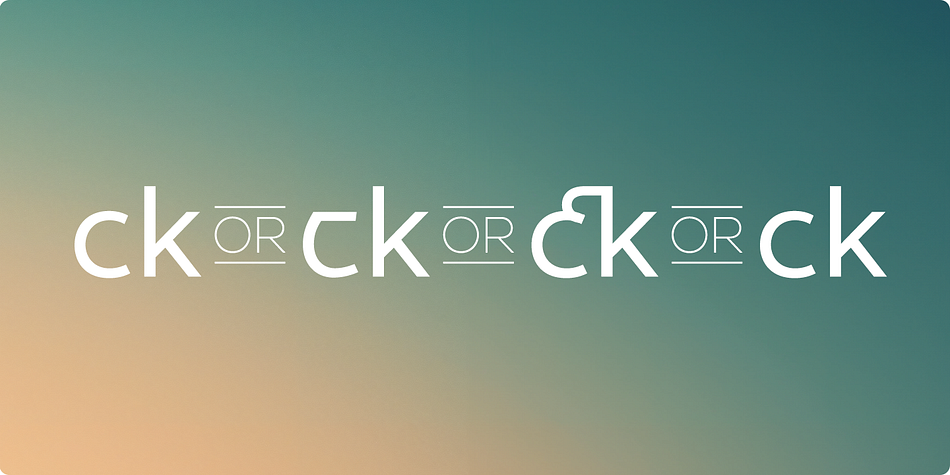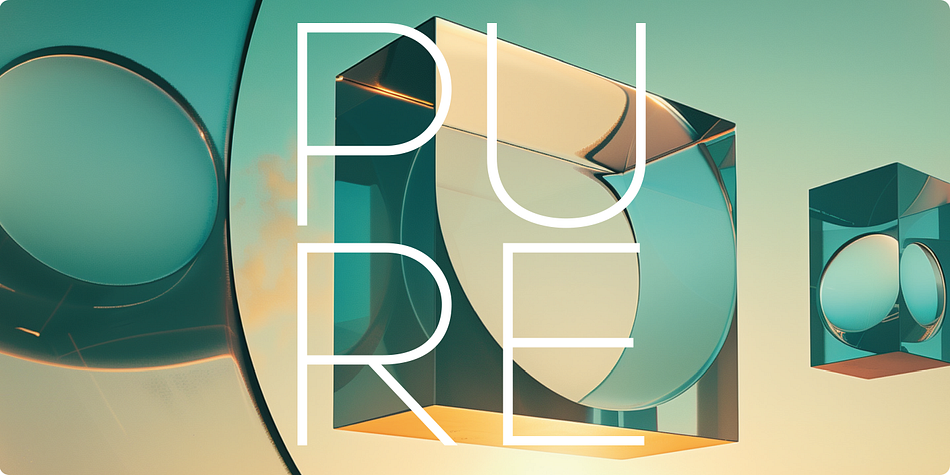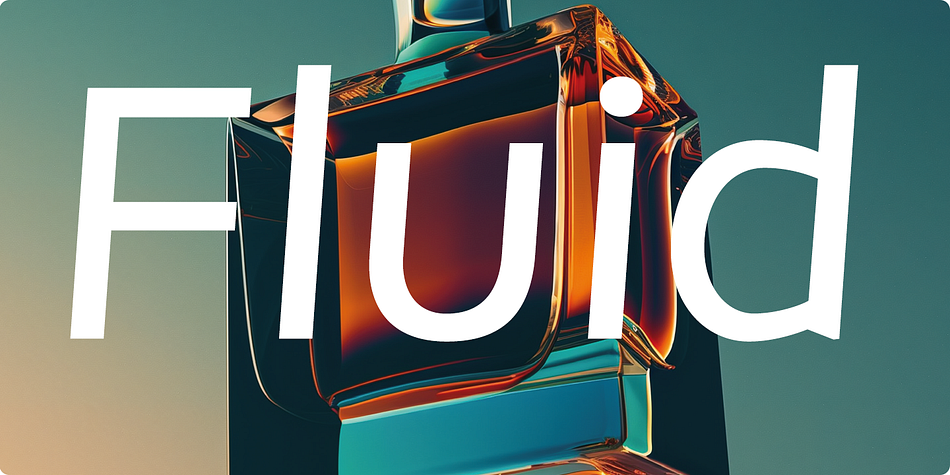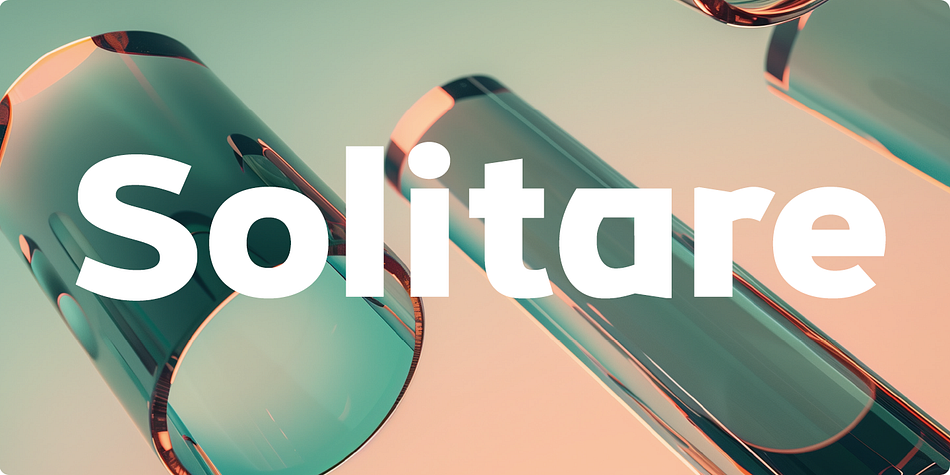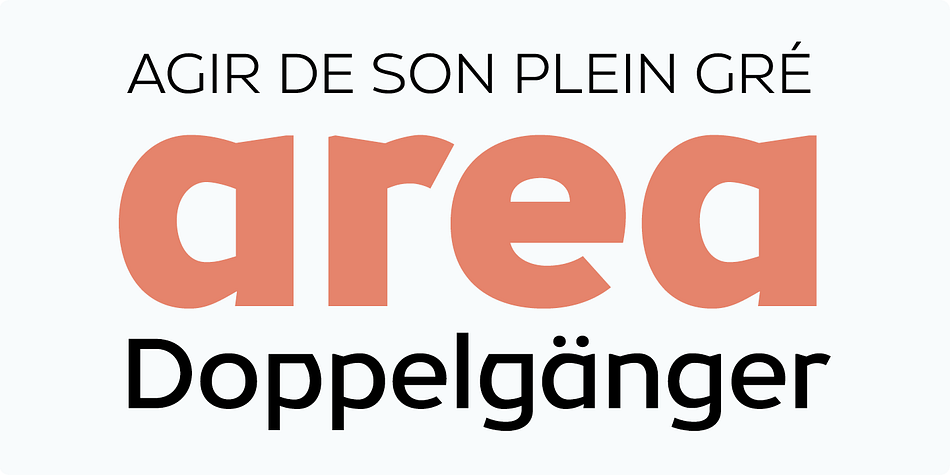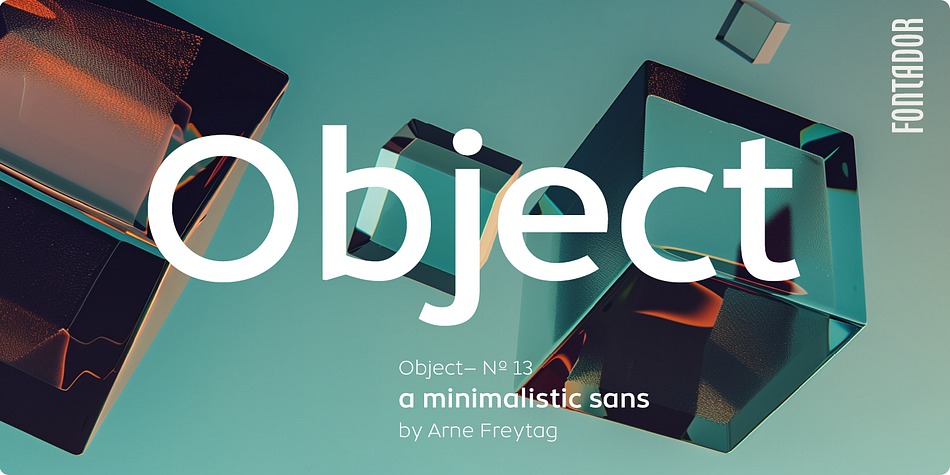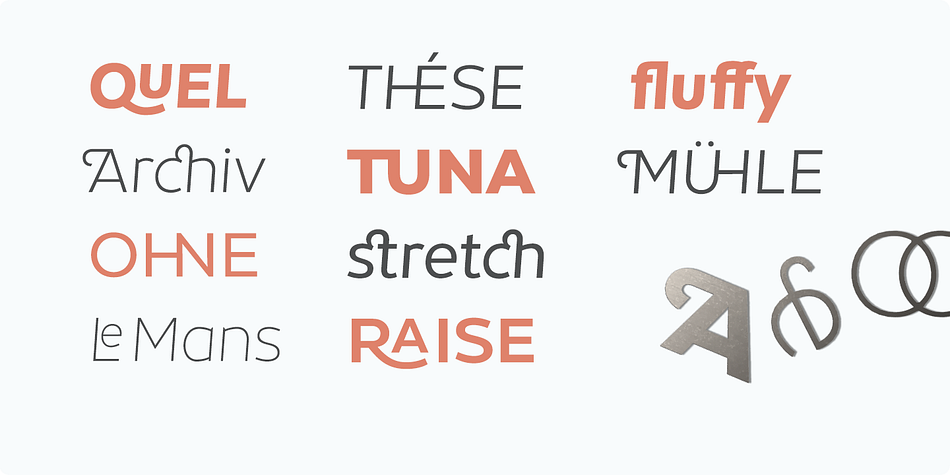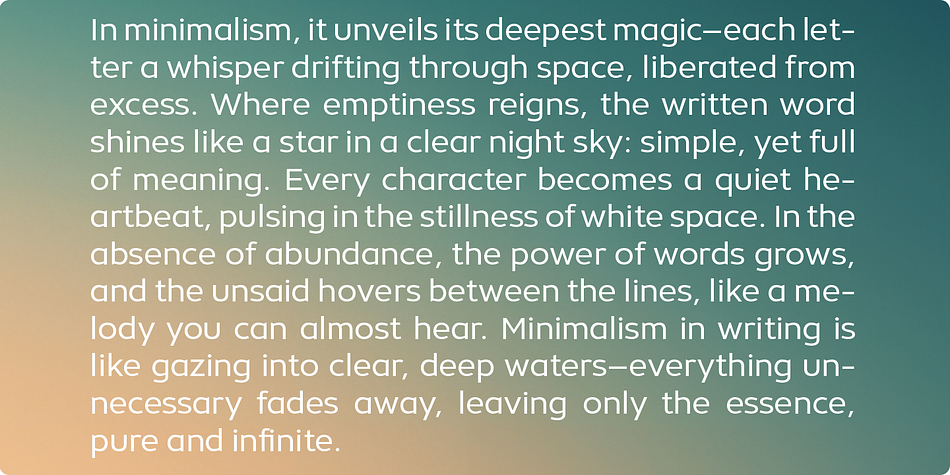
Designed by Arne Freytag, Object is a sans serif font family. This typeface has sixteen styles and was published by Fontador.
Object is a geometric sans serif especially designed for contemporary typography and comes with 8 weights from ultralight to black plus handslanted obliques.
A large x-height not only creates space for smaller sizes, but also lends Object an open and generous character for print and screen. Many OpenType features including 642 ligatures, contextuel alternates, inits and stylistic set built into all cuts.
The font contains 1.118 glyphs with a wide range of flexibility for Latin language support for every typographical needs. Object is a contemporary geometric typeface, special for logotypes, brands, magazines and corporate design.